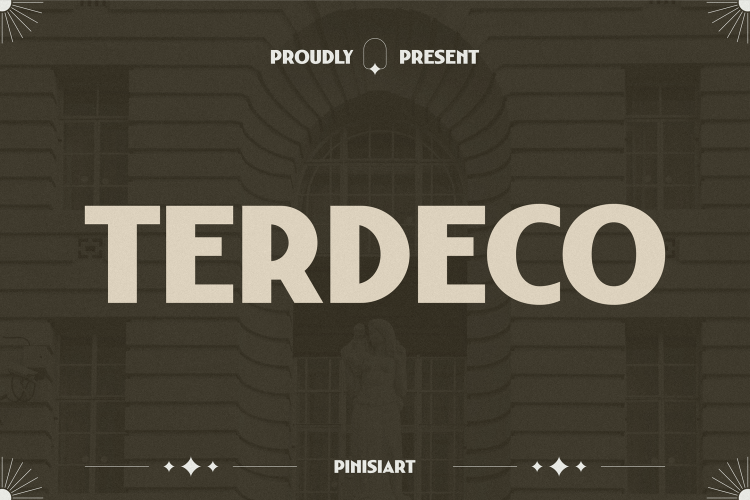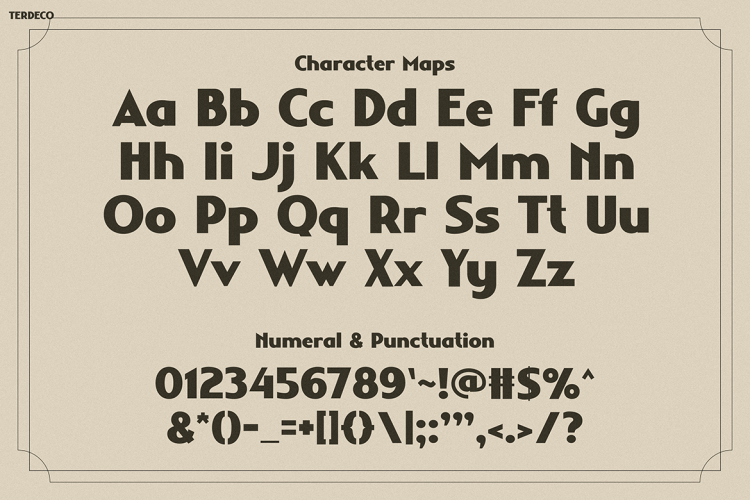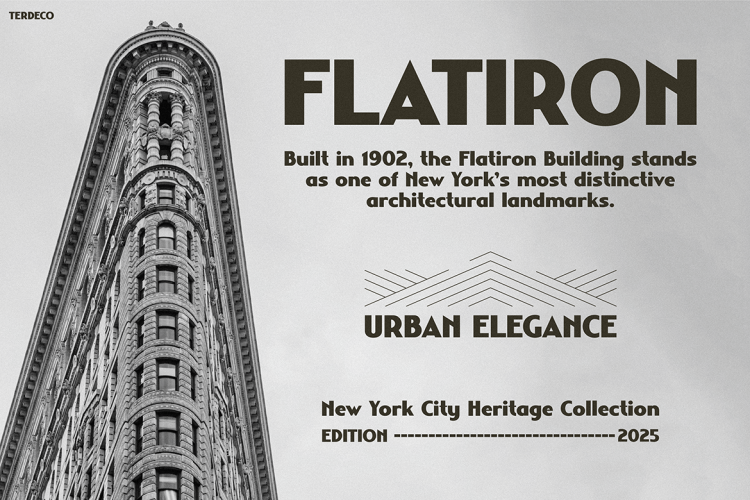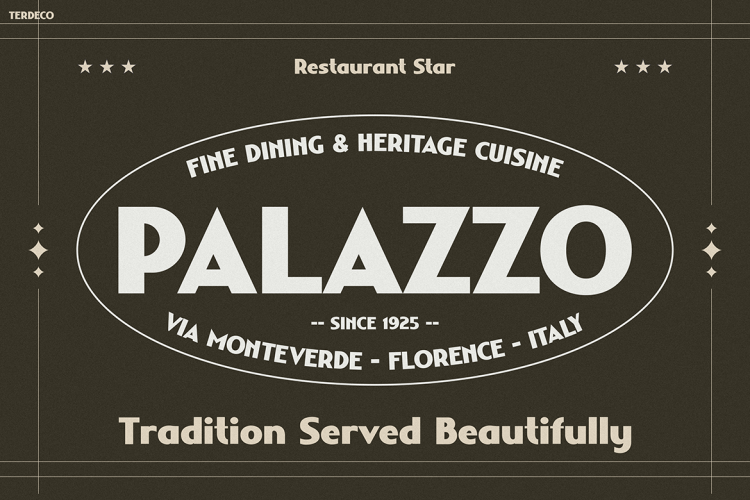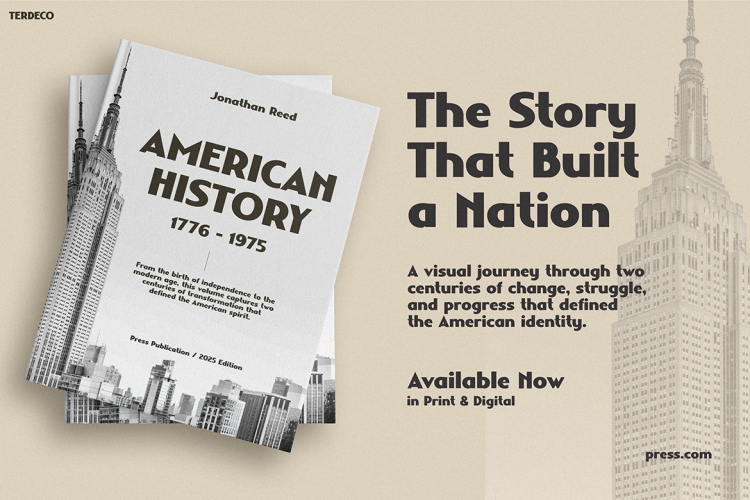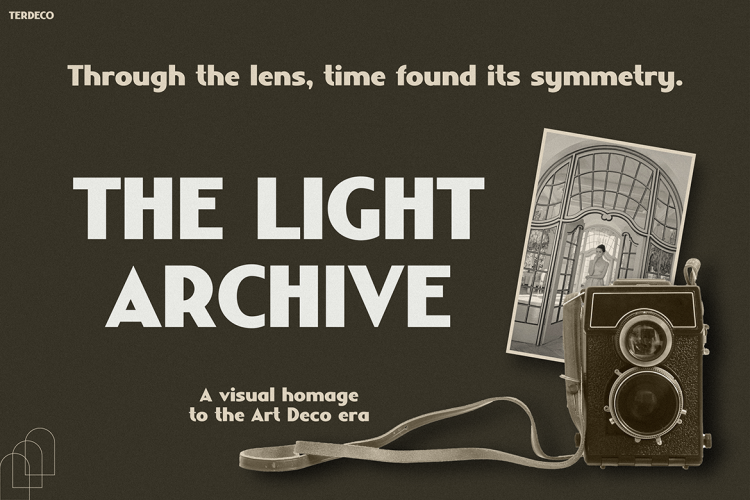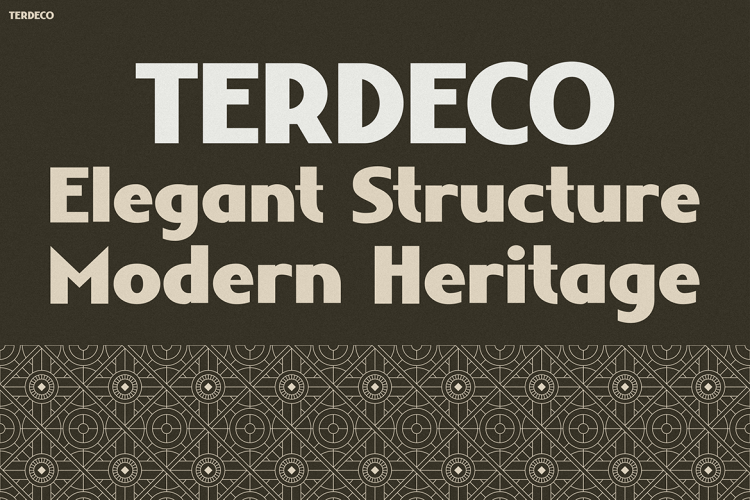
Retro Font TERDECO โ Elegant Structure, Modern Heritage
Retro Font TERDECO is a refined blend of Art Deco sophistication and modern design clarity. This typeface captures the timeless beauty of early 20th-century architecture while embracing the clean aesthetics of today. With its geometric precision, elegant proportions, and sharp details, it delivers a look that feels both luxurious and versatile. Moreover, its visual harmony makes every letter a piece of art, balancing structure and expression flawlessly.
Every character in TERDECO reflects a sense of symmetry, proportion, and confidence inspired by the golden age of design. The combination of strong vertical lines and graceful curves brings depth and personality to any layout. As a result, it feels equally at home on modern branding as it does on vintage-inspired visuals. In addition, its high readability ensures that it performs beautifully in both print and digital applications, from posters and magazines to signage and packaging.
Perfect For Designers, Creators & Brands with Taste
Retro Font TERDECO is ideal for graphic designers, brand creators, and creative professionals seeking to add classic elegance to their work. It works perfectly for luxury branding, architectural firms, fine dining restaurants, editorial titles, and high-end packaging. Furthermore, it shines in boutique hotel identities, museum exhibitions, and fashion campaigns that require a touch of nostalgia mixed with modern refinement.
Because of its structured yet decorative nature, TERDECO easily bridges the gap between minimalism and ornamentation. Therefore, itโs an excellent choice for designers who want to convey sophistication, precision, and historical depth without sacrificing modern style.
Bring Timeless Style to Every Design
With Retro Font TERDECO, your designs gain both personality and presence. Every curve and angle speaks of craftsmanship and heritage. Moreover, it allows you to evoke the charm of Art Deco while staying relevant to modern aesthetics.
So, elevate your brand identity, poster art, or editorial design with this timeless typeface. Choose Retro Font TERDECO today and let its structured elegance and vintage soul bring your creative vision to life.